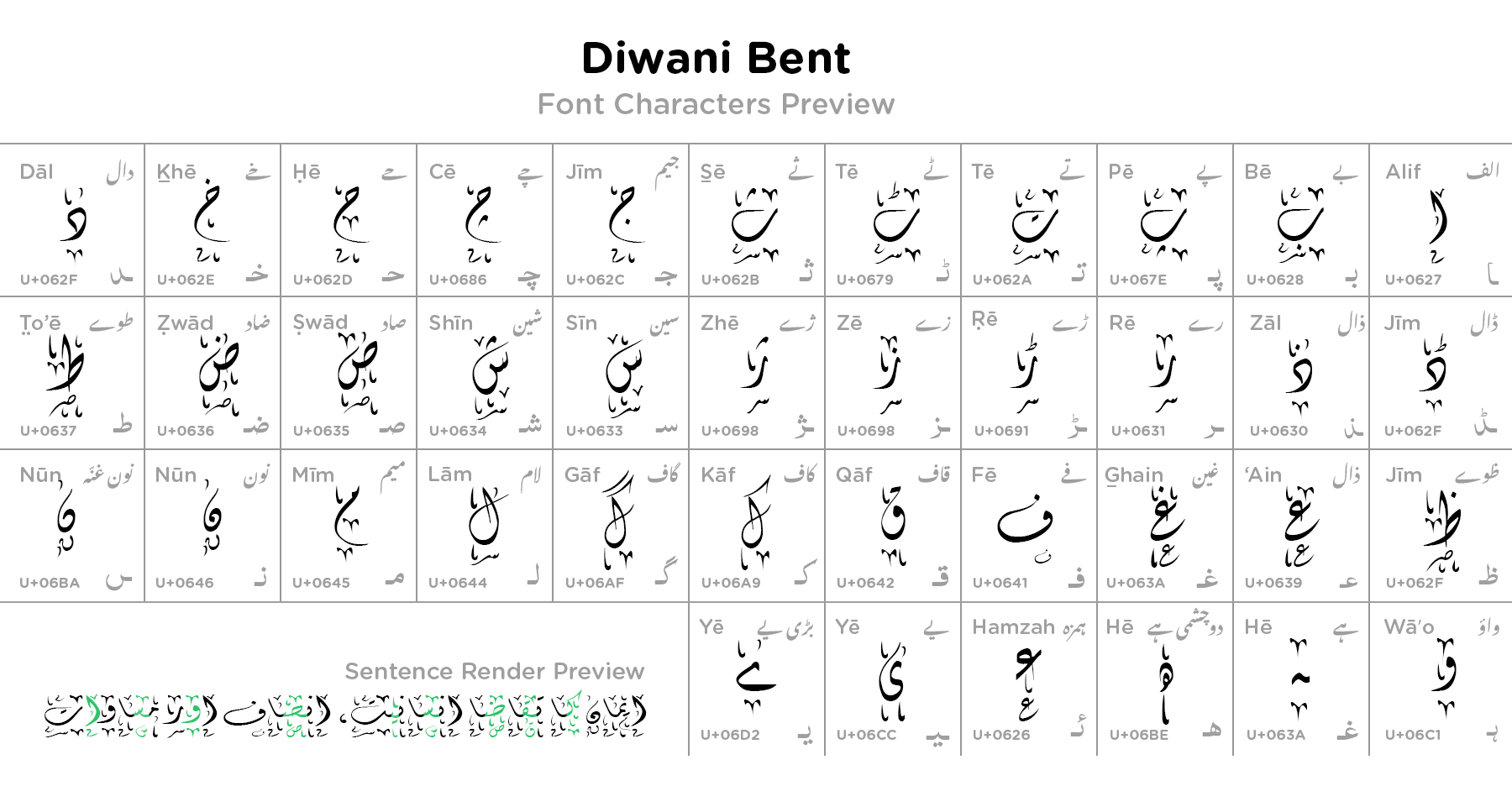
Diwani Bent is a cursive, decorative, flowing, and delicate Arabic font developed by Microsoft, drawing inspiration from the traditional Divani script but infused with a modern flair. Released on October 6, 2017, it boasts 447 characters and symbols, making it compatible with various languages, including Urdu, Arabic, Latin, and Persian. This cursive and flowing font features contrasting thickness and intricate designs, reminding us of traditional calligraphy. The font’s thickness varies, appearing dense toward curves and thinner towards terminals, lending it a dynamic and expressive quality. Its impactful strokes and changing thickness create a visually captivating effect, enhancing its lavish appearance. Despite its beauty, Diwani Bent’s legibility is lower due to its highly decorative nature, making it best suited for short text blocks or larger sizes where its intricate design can be appreciated.
The font shows sophistication and refinement, making it ideal for decorative purposes such as branding, logos, invitations, and gift cards. Its formal and visually striking appearance, characterized by elongated ascenders and descenders, intricate loops, curls, and flourishes, adds elegance to any project. Whether used in Quran writing, poetry, or other artistic endeavors, it elevates the visual impact with its graceful curves and flowing strokes.